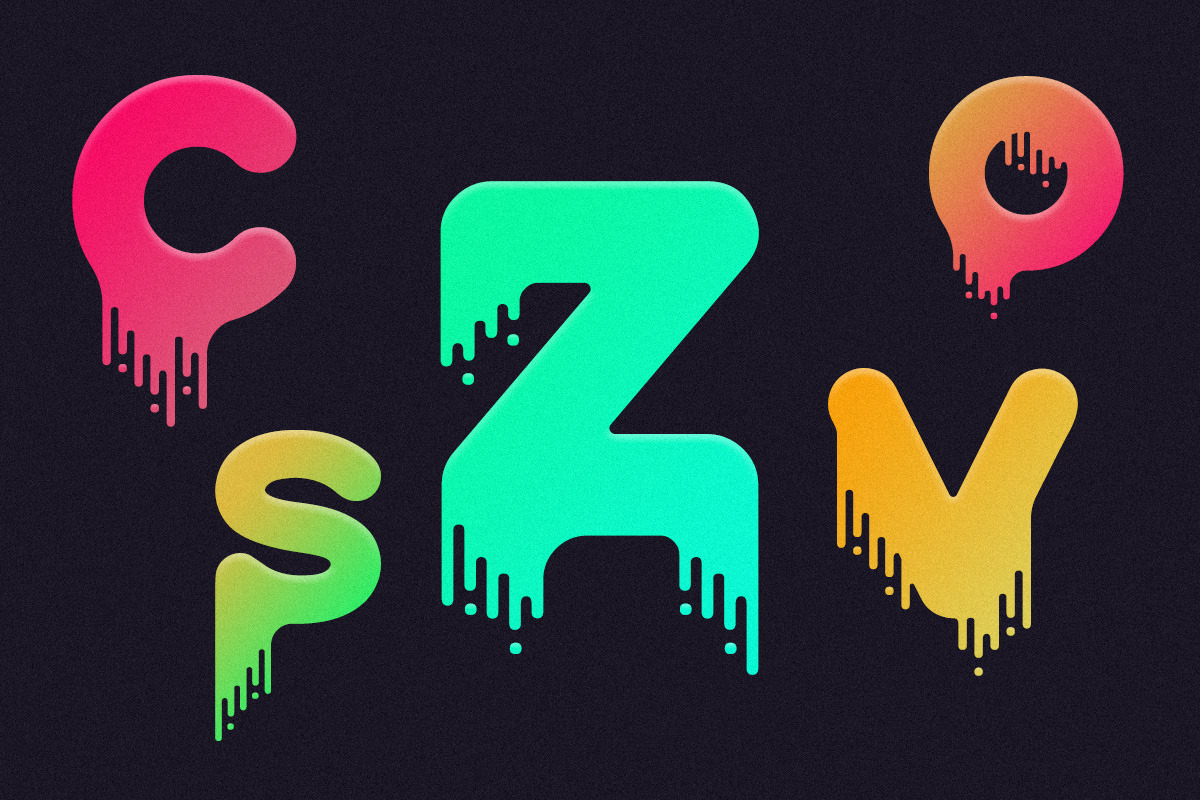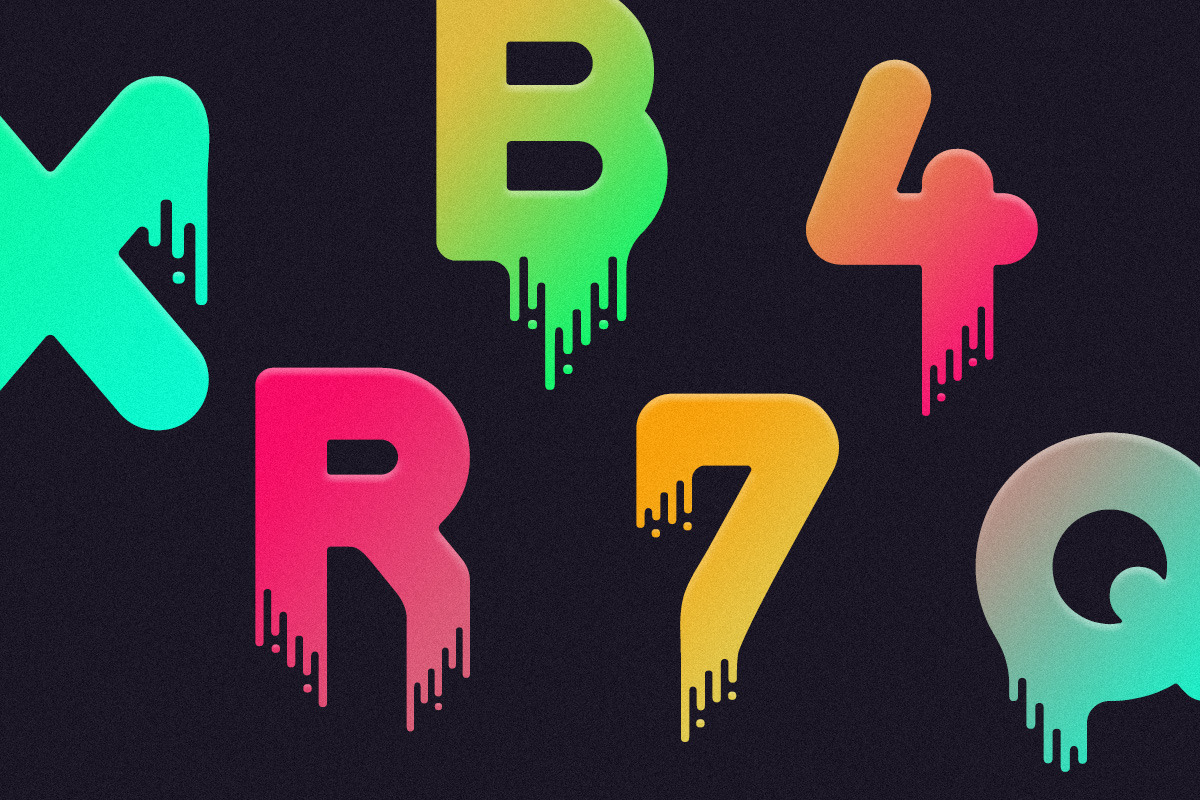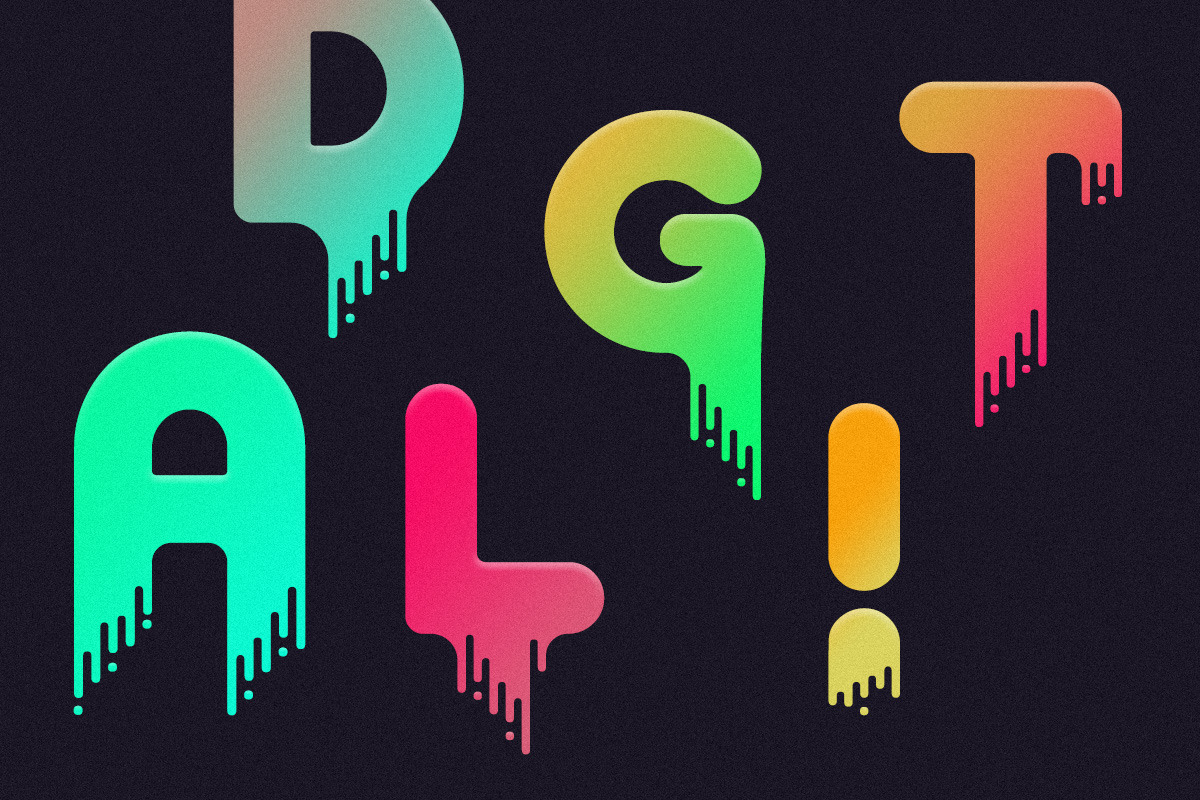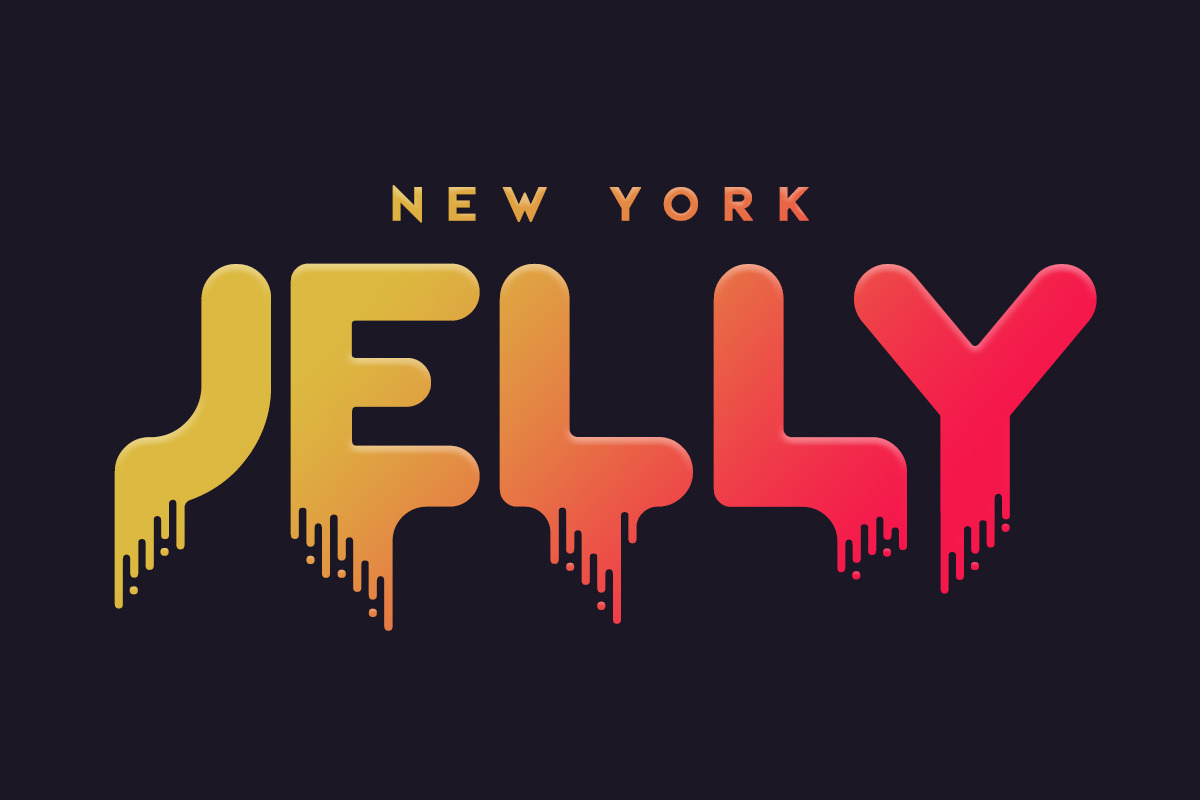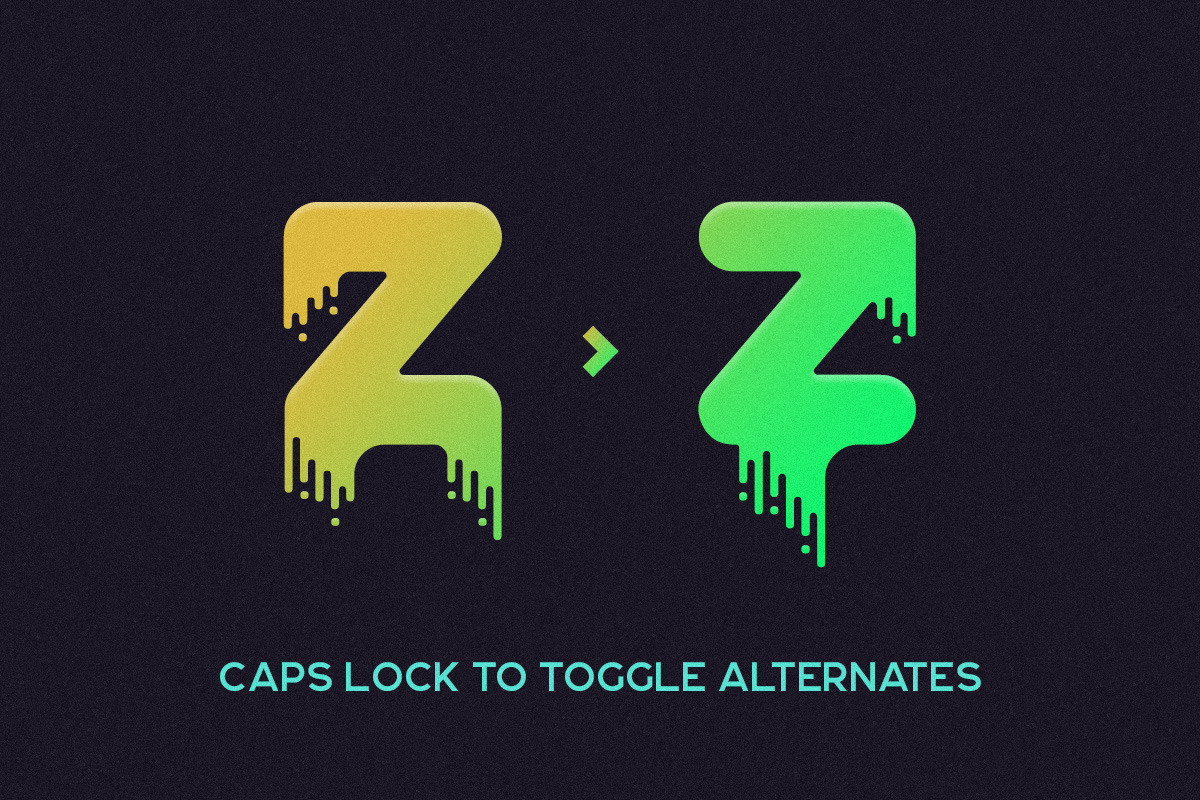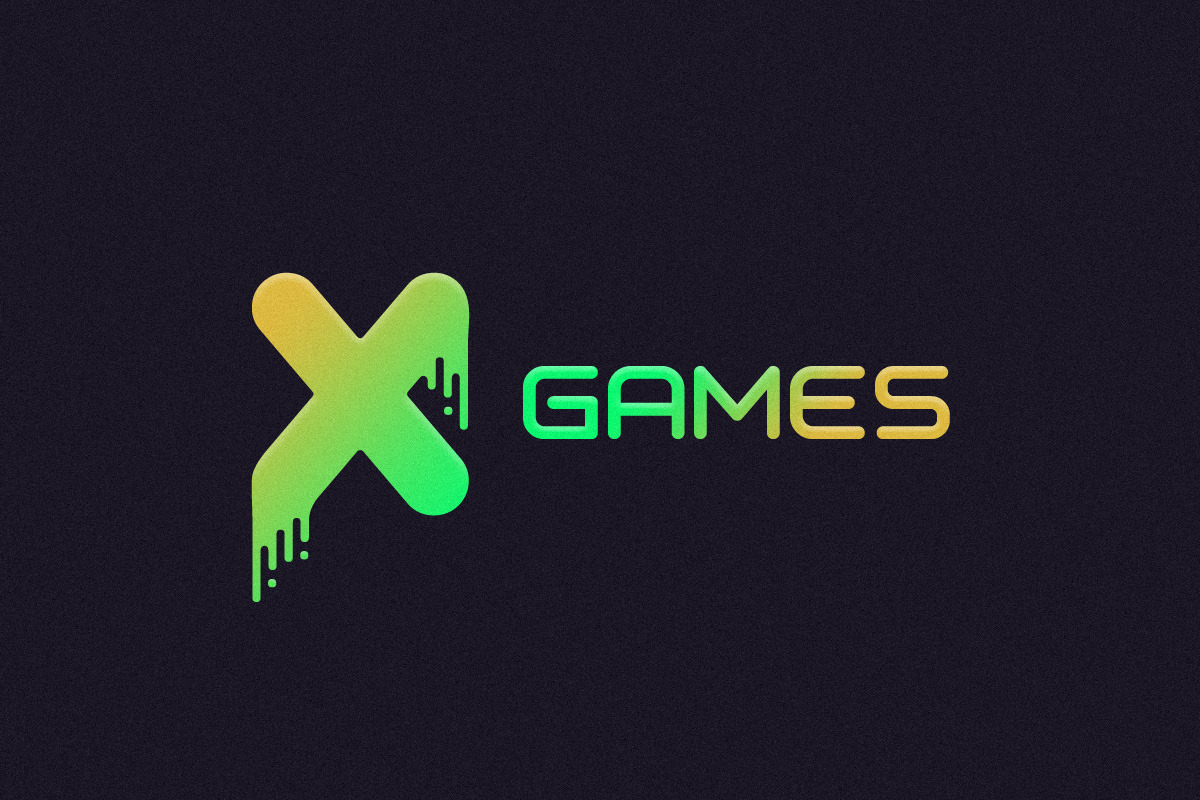
Drip - Liquid Font
Drip - Liquid Font by Tugcu Design Co. is a font selected for branding, posters, packaging, typography.
- Almost every letter has an alternate version that is toggleable via caps lock.
Why Drip - Liquid Font is worth a look
Drip - Liquid Font by Tugcu Design Co. fits naturally into Branding, posters, packaging, typography.